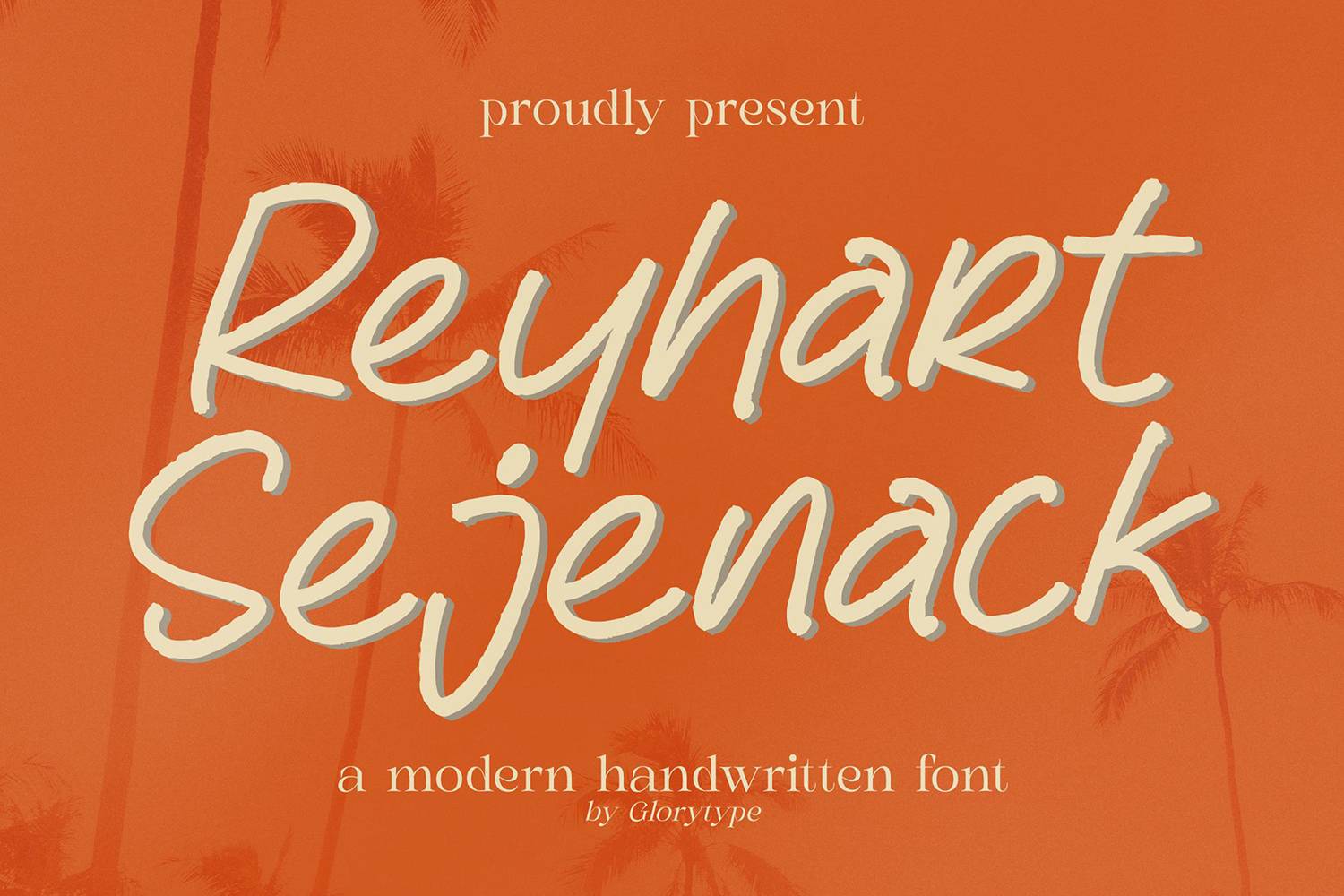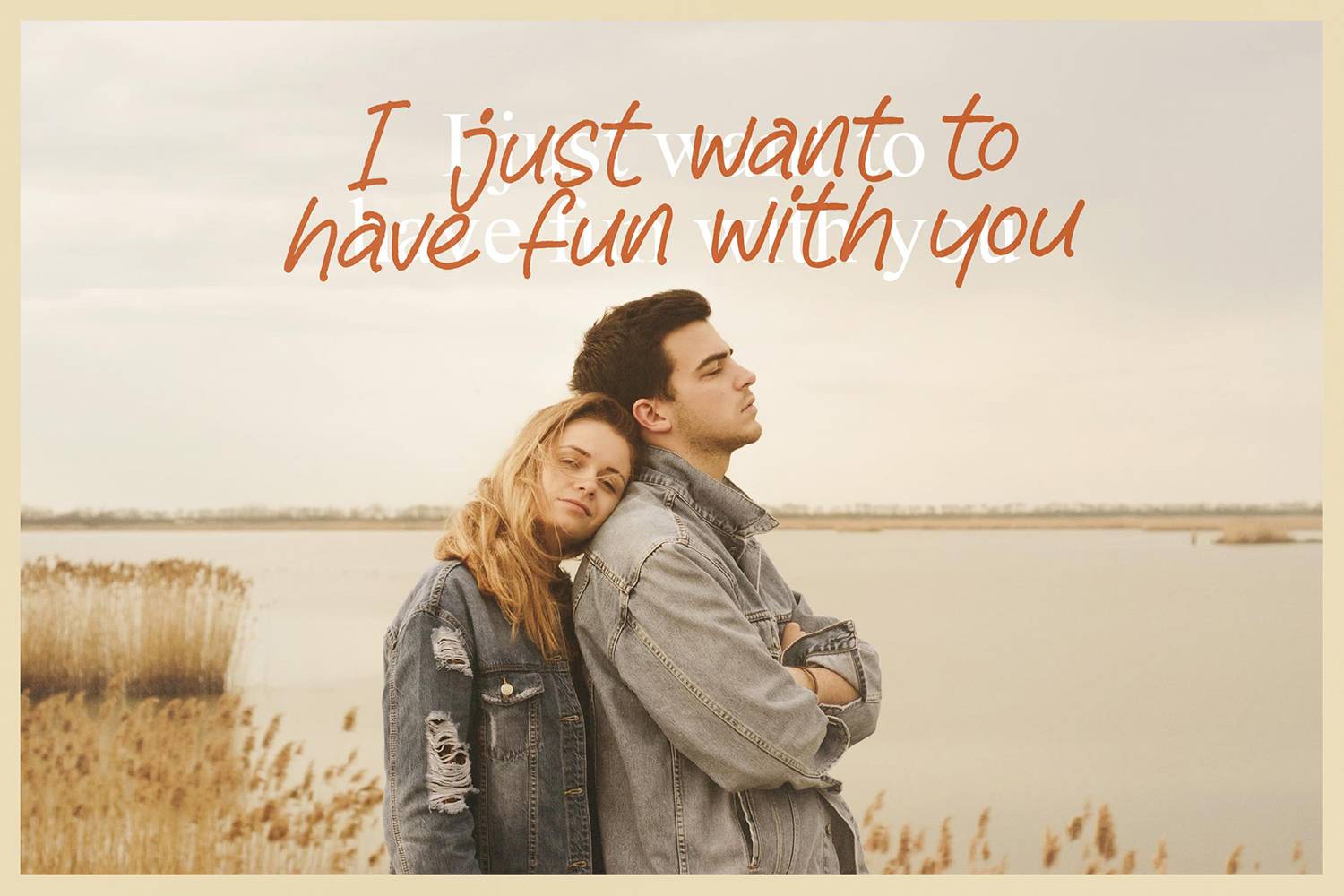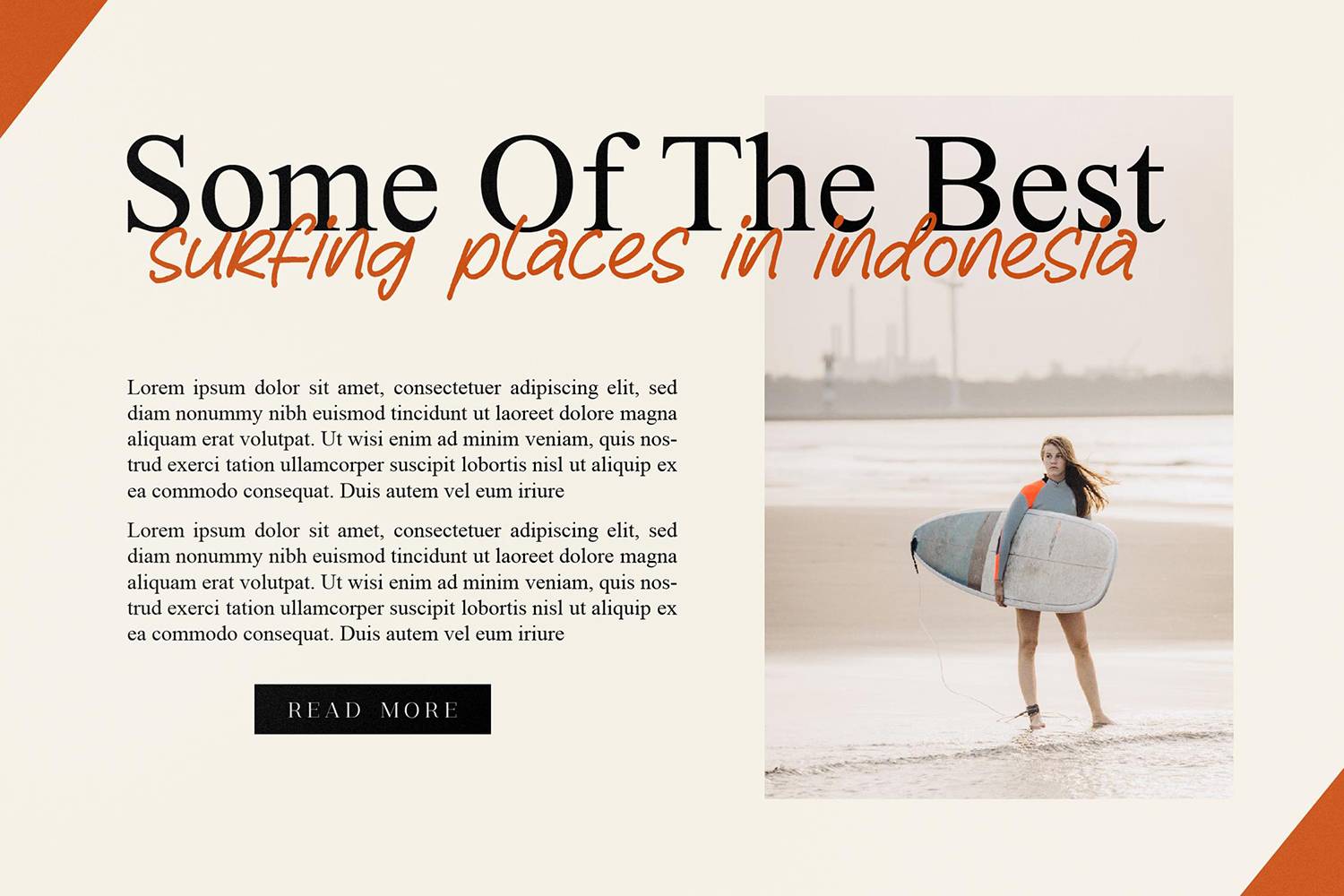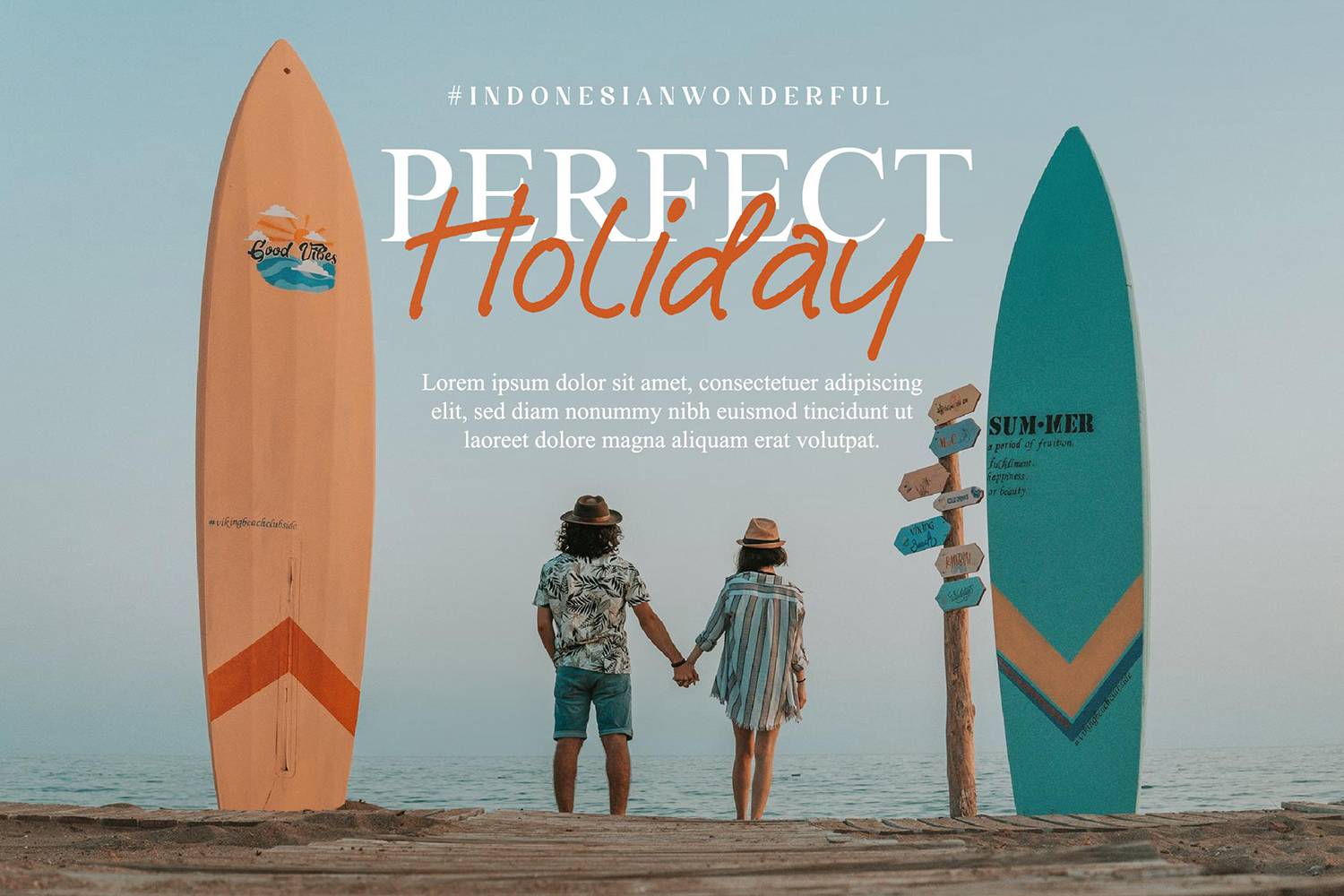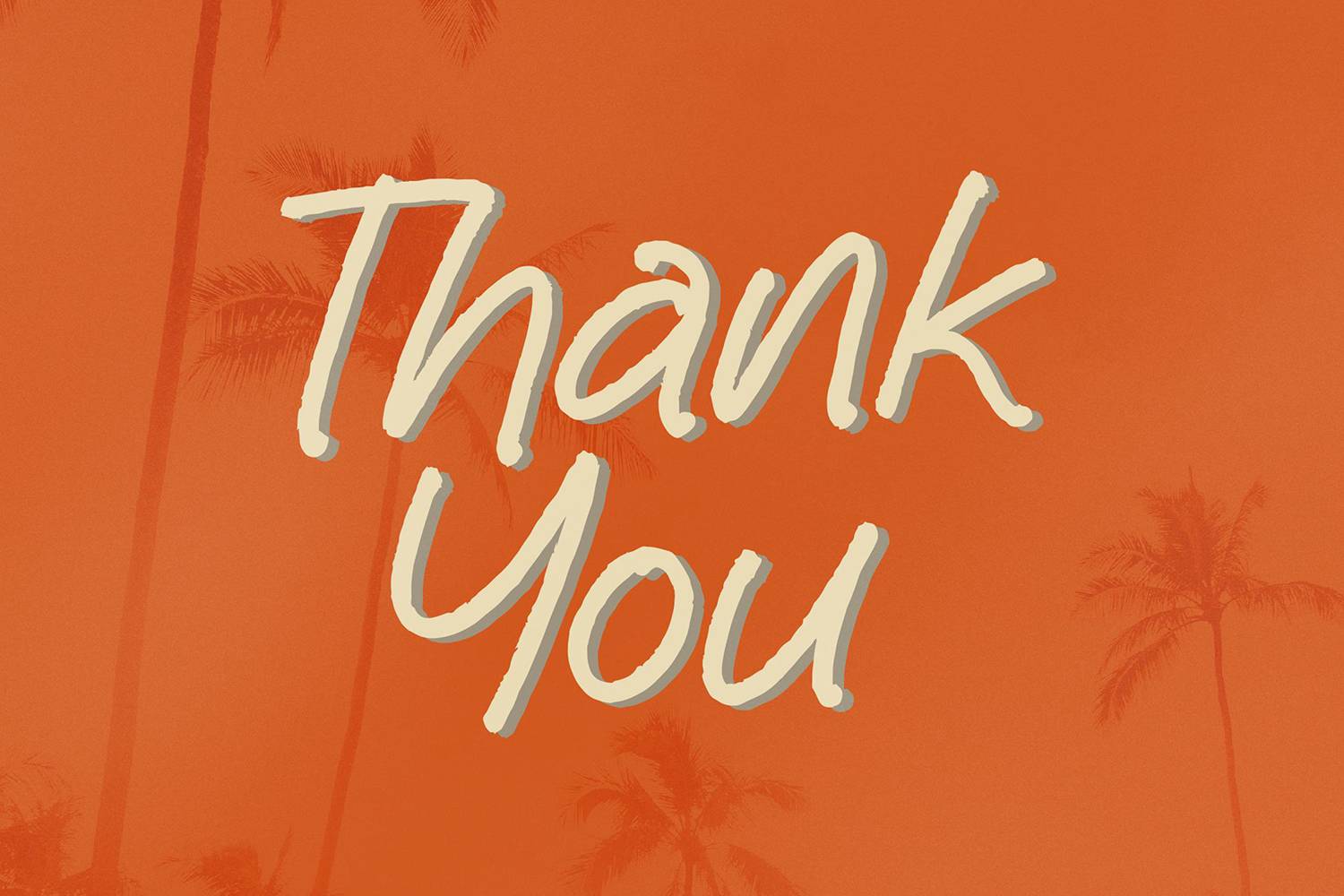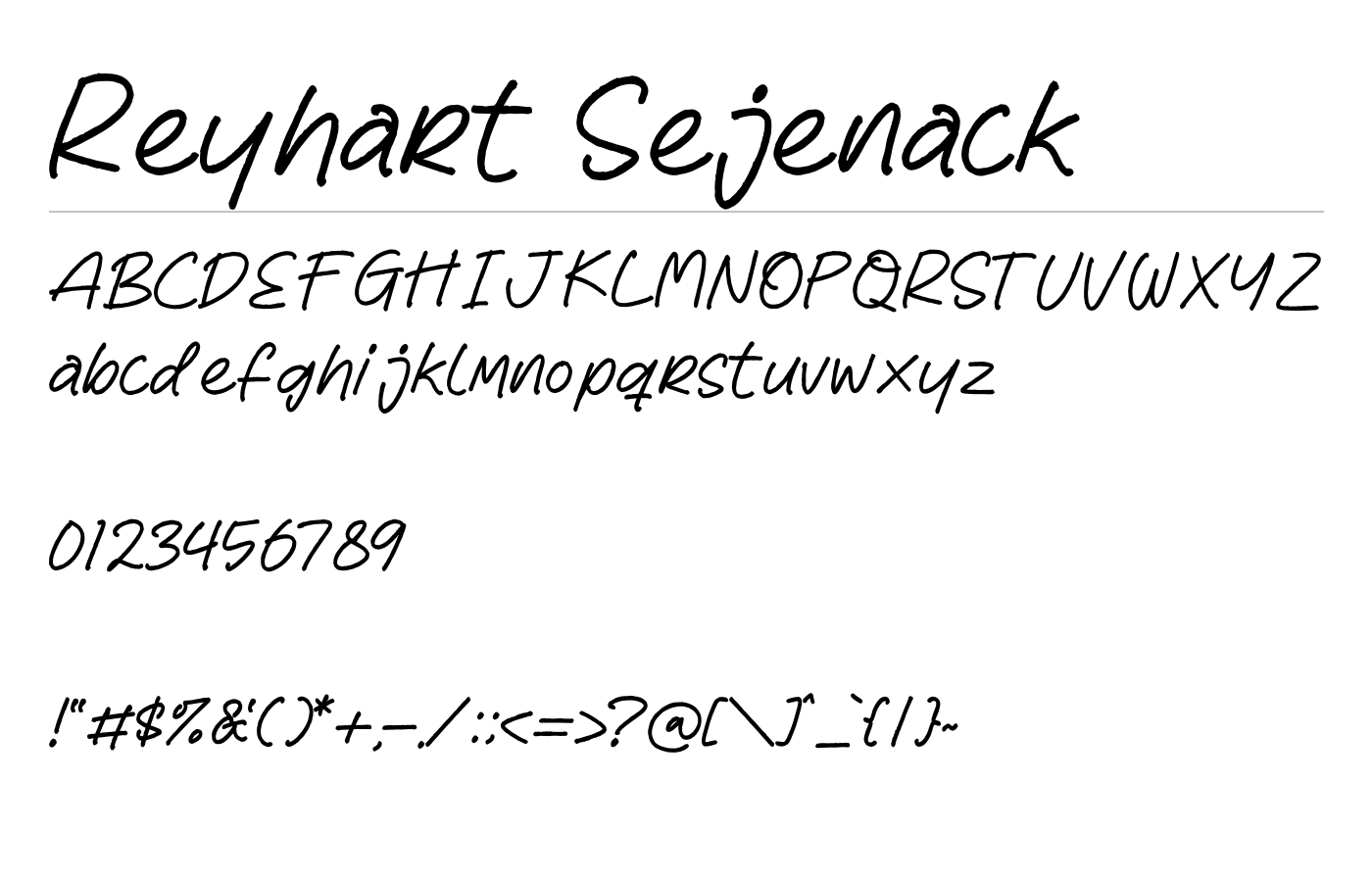
Reyhart Sejenack is a casual, handwritten sans serif font that feels warm and personal with its slightly irregular, flowing strokes and medium contrast. Its upright letterforms, light weight, and open spacing give it an approachable, friendly vibe, making it perfect for informal designs, invitations, and creative branding where a natural, human touch is desired. This font works well in headlines and short texts, adding charm and personality without sacrificing readability.
Reyhart Sejenack Font
About Reyhart Sejenack Font